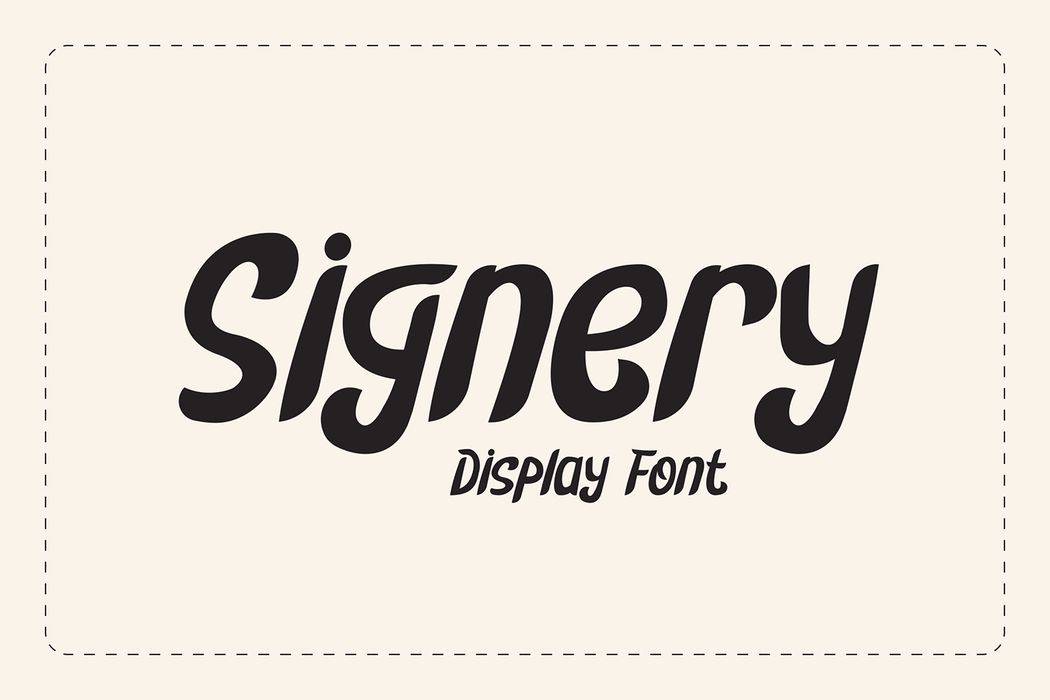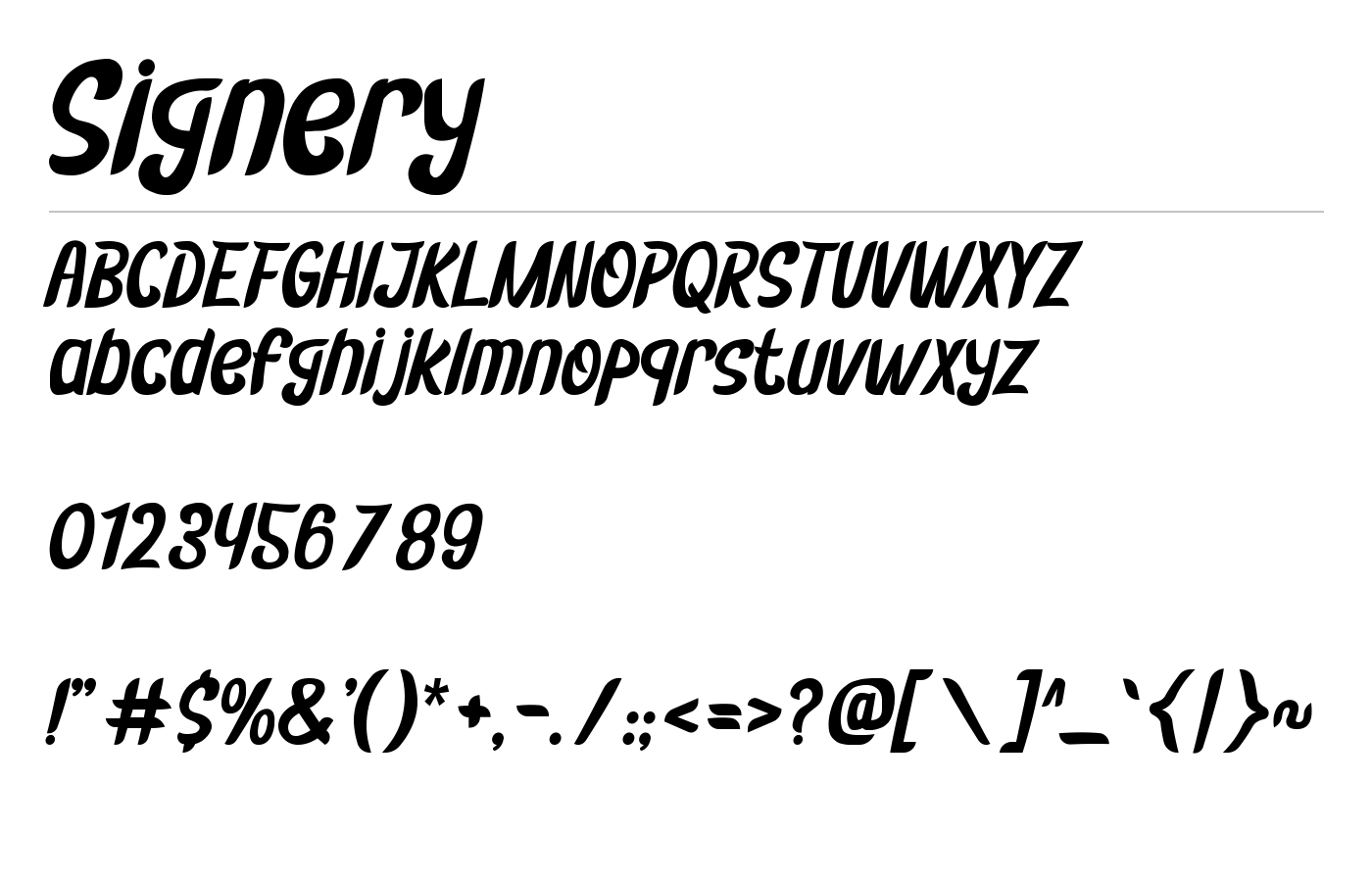
Signery is a bold, italic sans serif font with a playful and dynamic character, marked by its smooth, curved strokes and slightly condensed letterforms. Its lively style makes it ideal for eye-catching headlines, logos, or branding projects that want to convey energy and modernity with a friendly vibe. This font works well in creative and informal designs, adding personality without sacrificing clarity.
Signery Font
About Signery Font